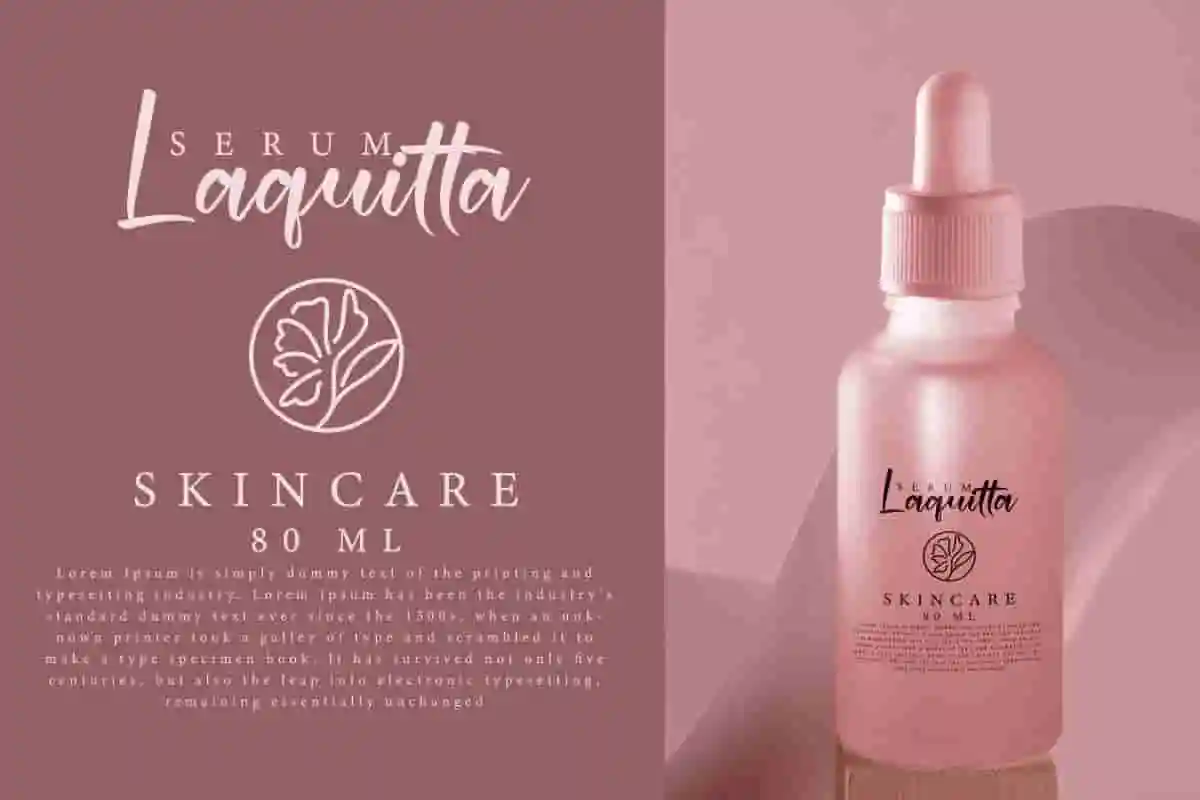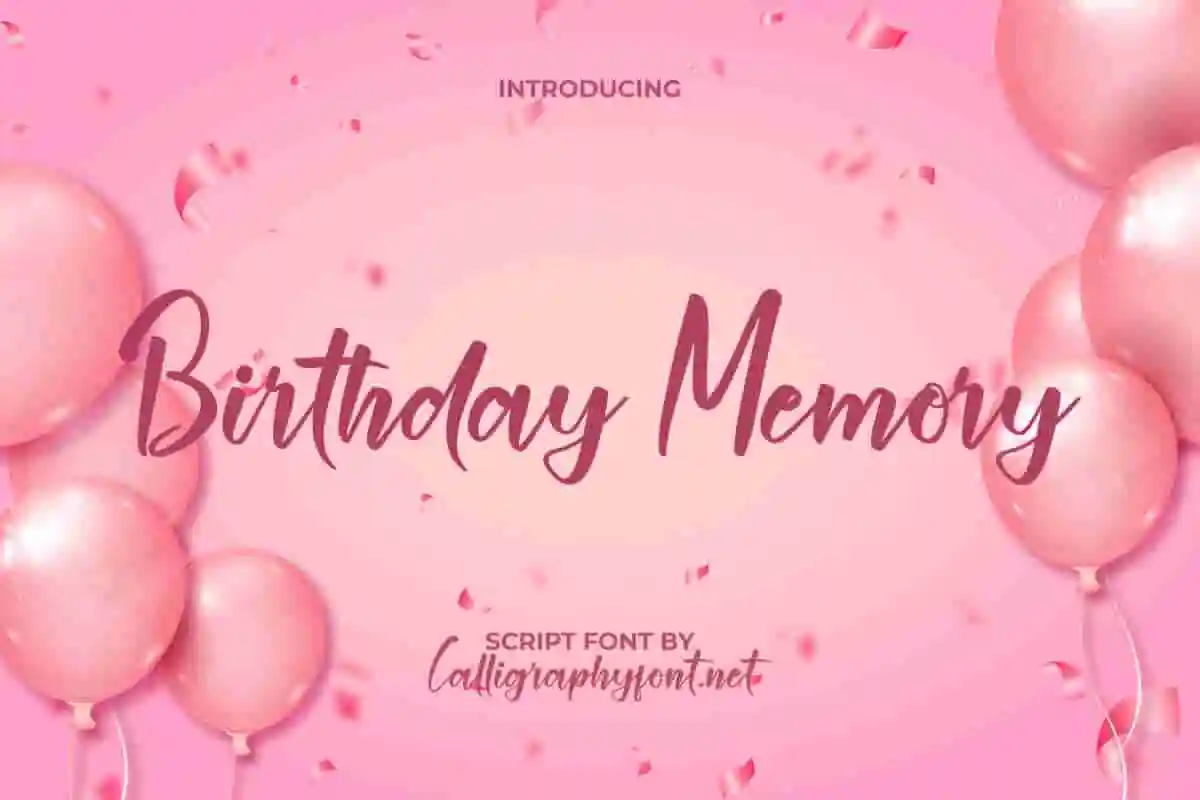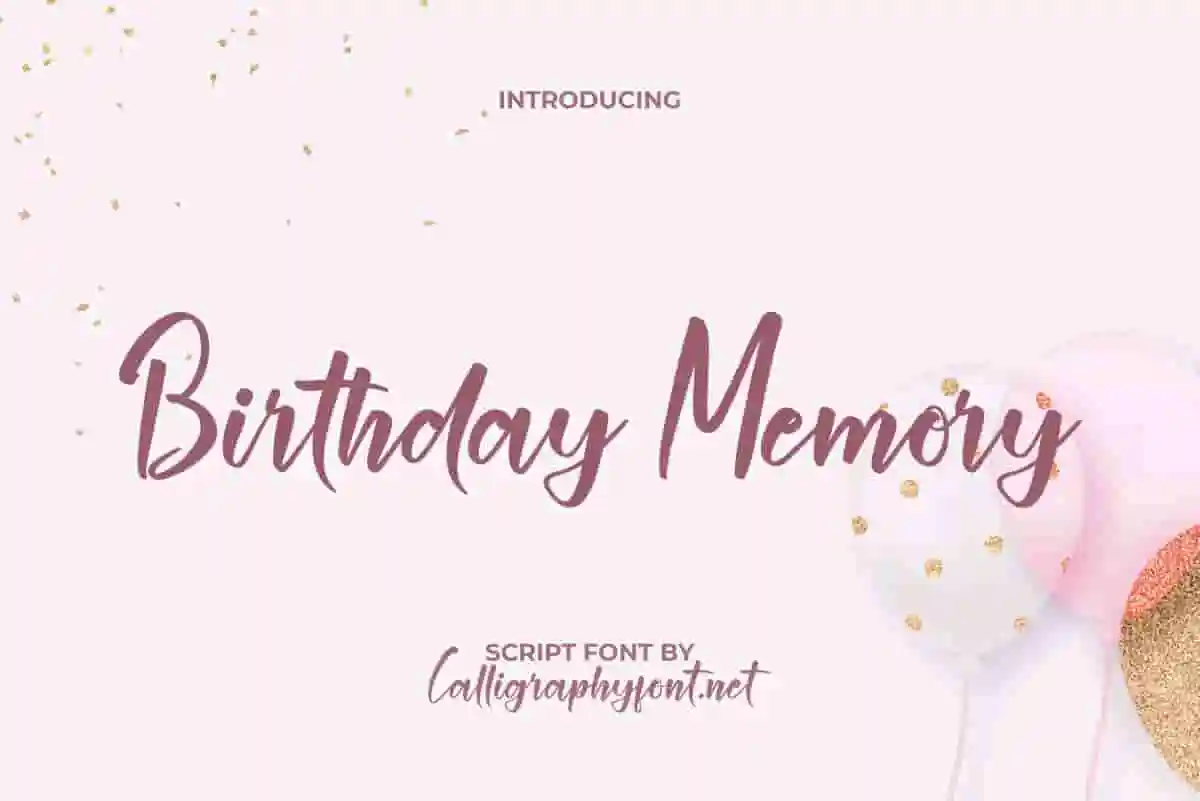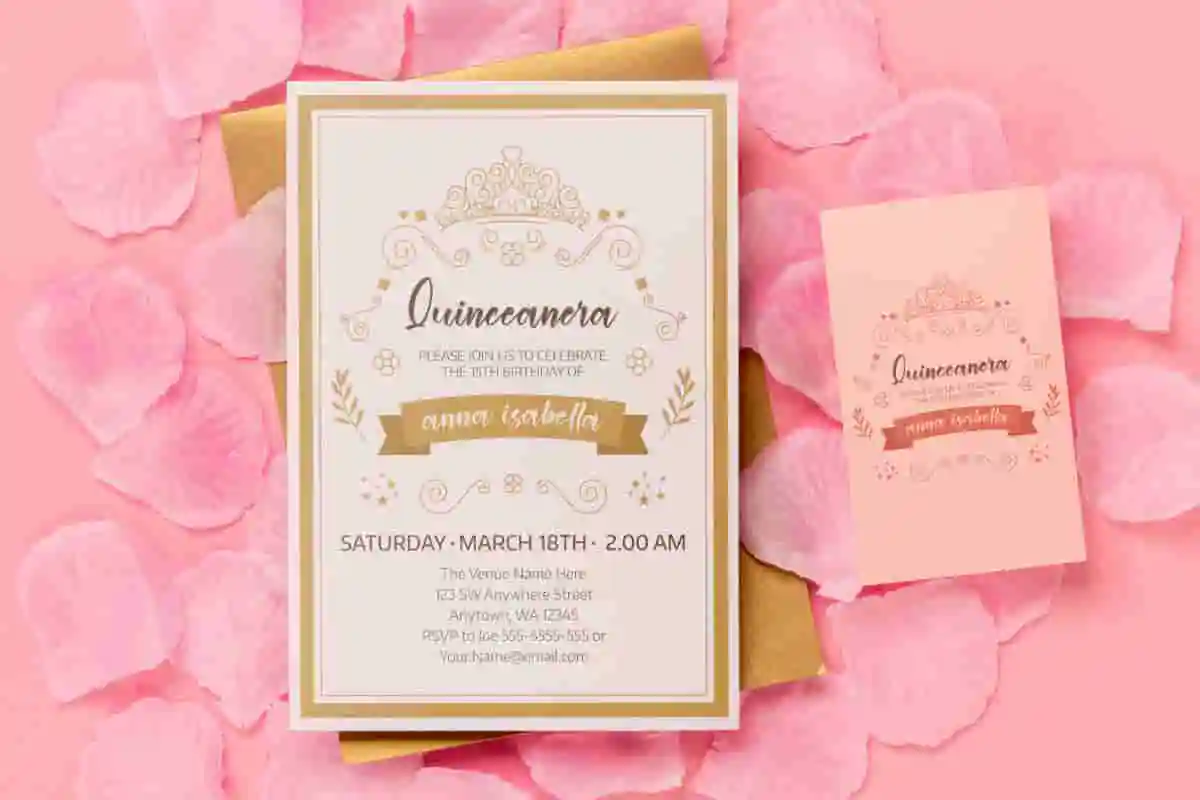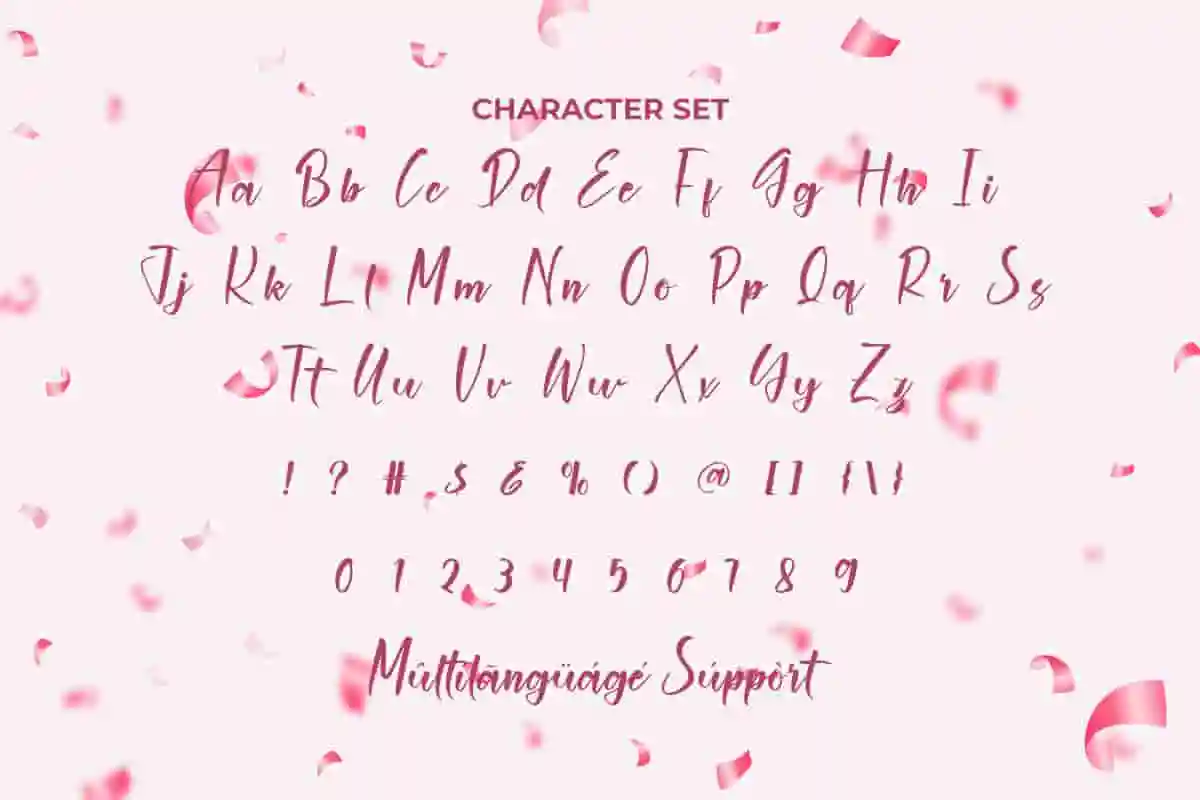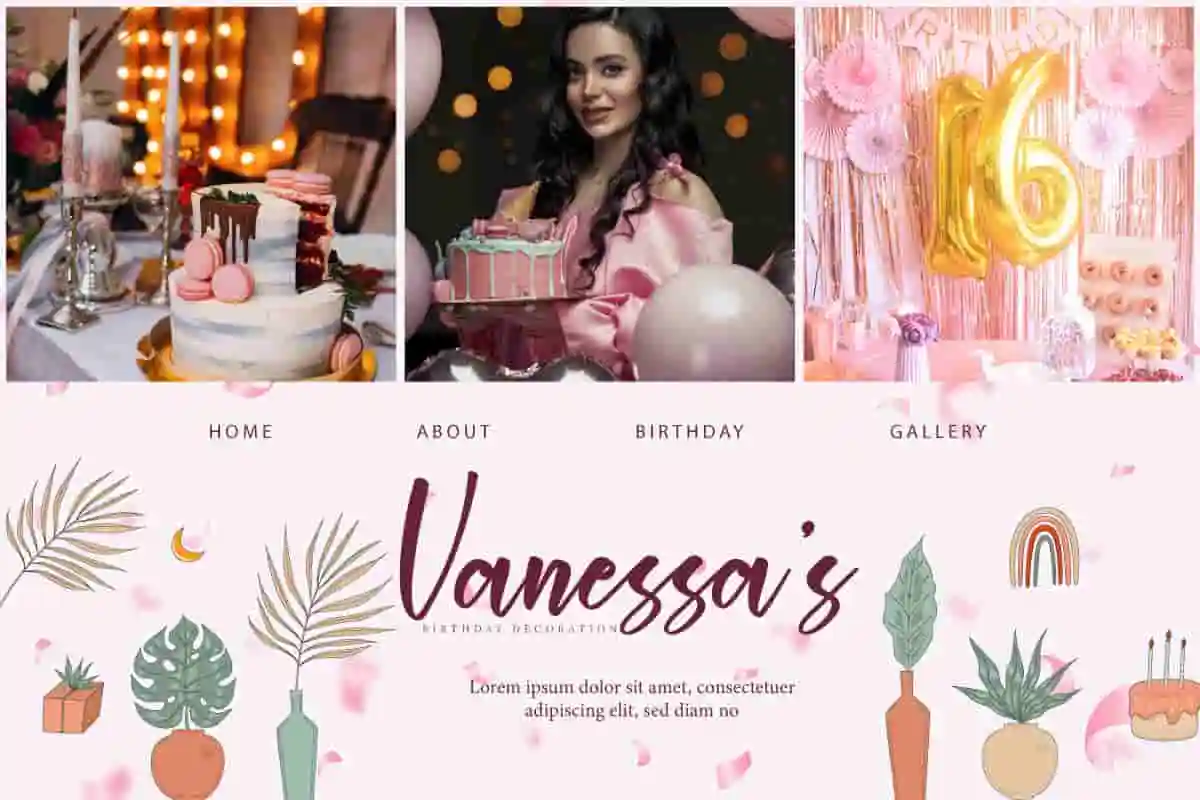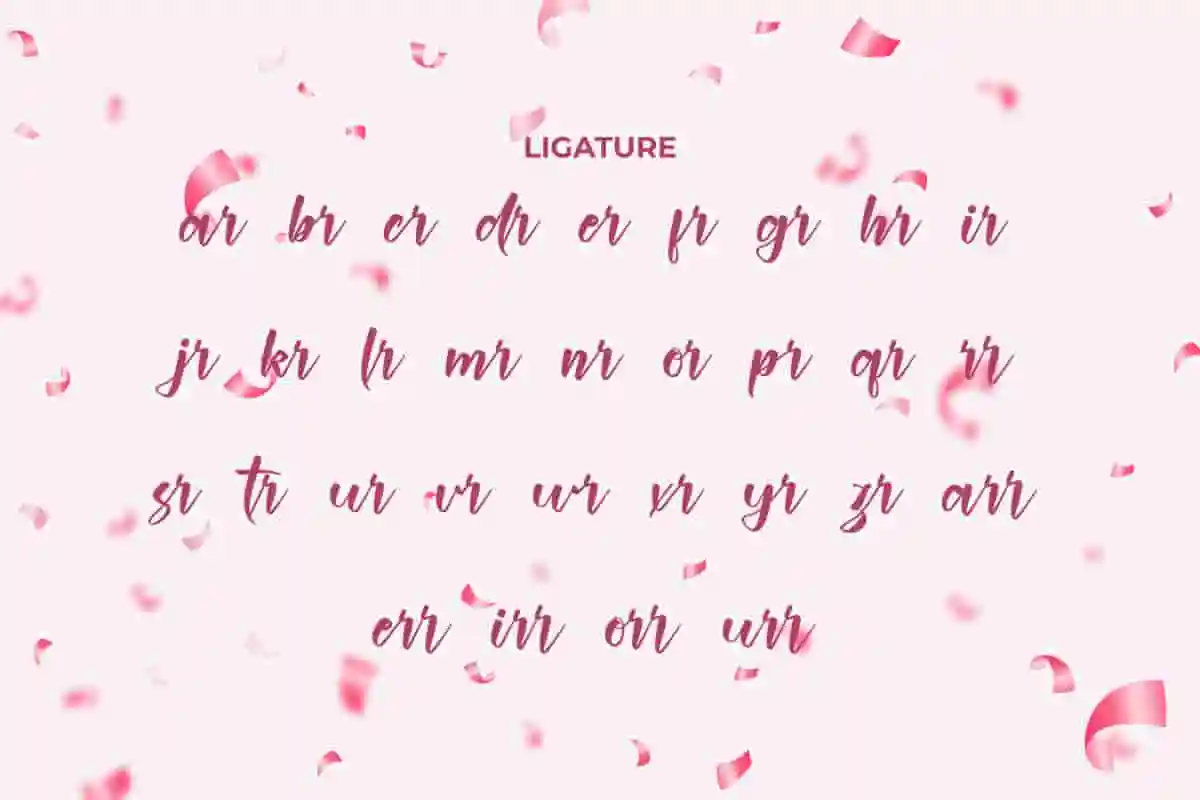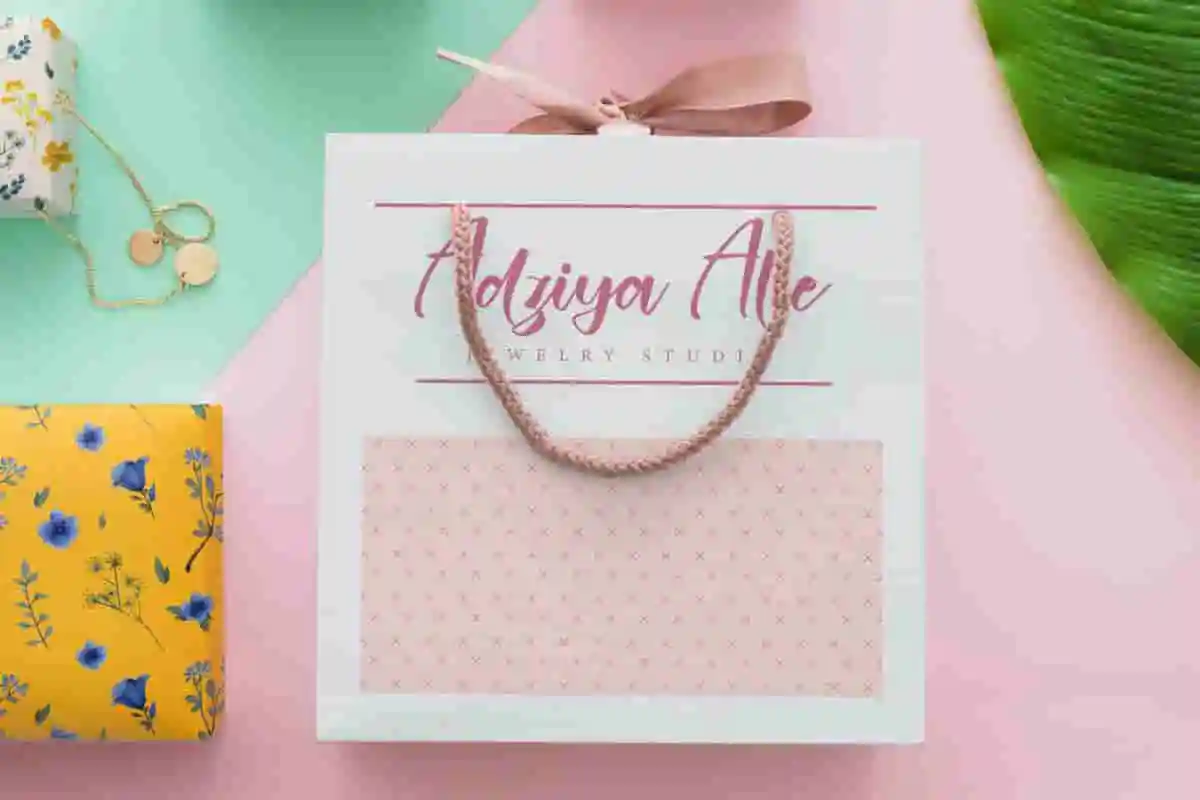
Birthday Memory Font
Birthday Memory Font is a lovely script font with a charming style. This font will be perfect for accessories, birthday party, gift decoration, greeting card, invitation, quotes, skincare, etc.
Birthday Memory Font is a beautiful handwritten script font that takes the theme of a birthday party created by CalligraphyFonts. This casual typography is so subdued it can remind us of our most treasured memories so it’s perfect for any industry, such as accessories, birthday decoration, event organizer, fashion brand, florist, furniture, gift store, handicrafts, jewelry, printing, publishing, real estate, restaurant, skincare, spa salon, and much more.
Birthday Memory Font comes with a full set of Uppercase and Lowercase Basic Characters, Number, a large range of Punctuation, Symbol and Ligature. It will be ready to accompany you on any project, such brand logo, brochure, card design, cover, invitation, label, packaging design, screen print, stationery, sticker, title, website, or just the art of writing on a background.